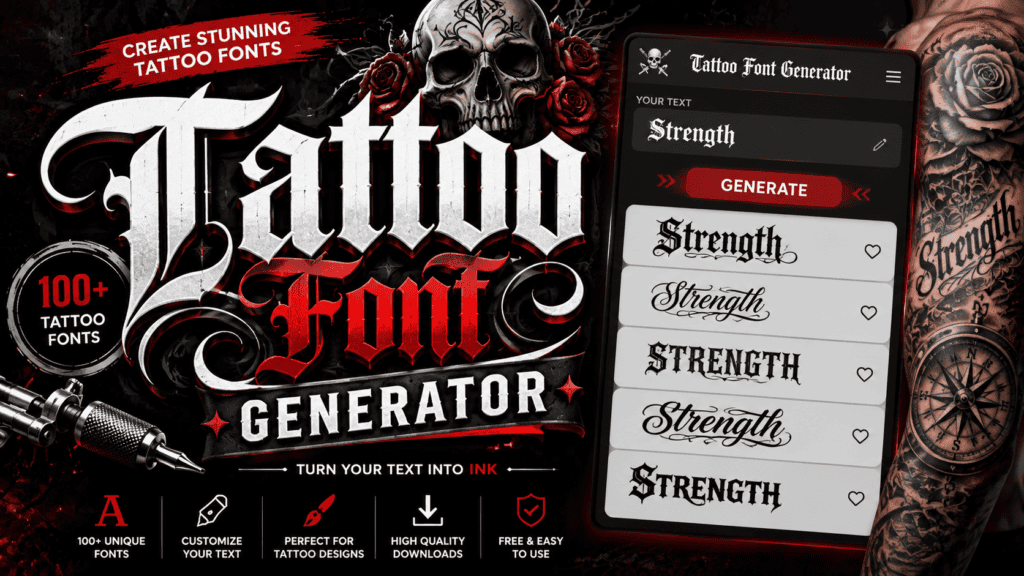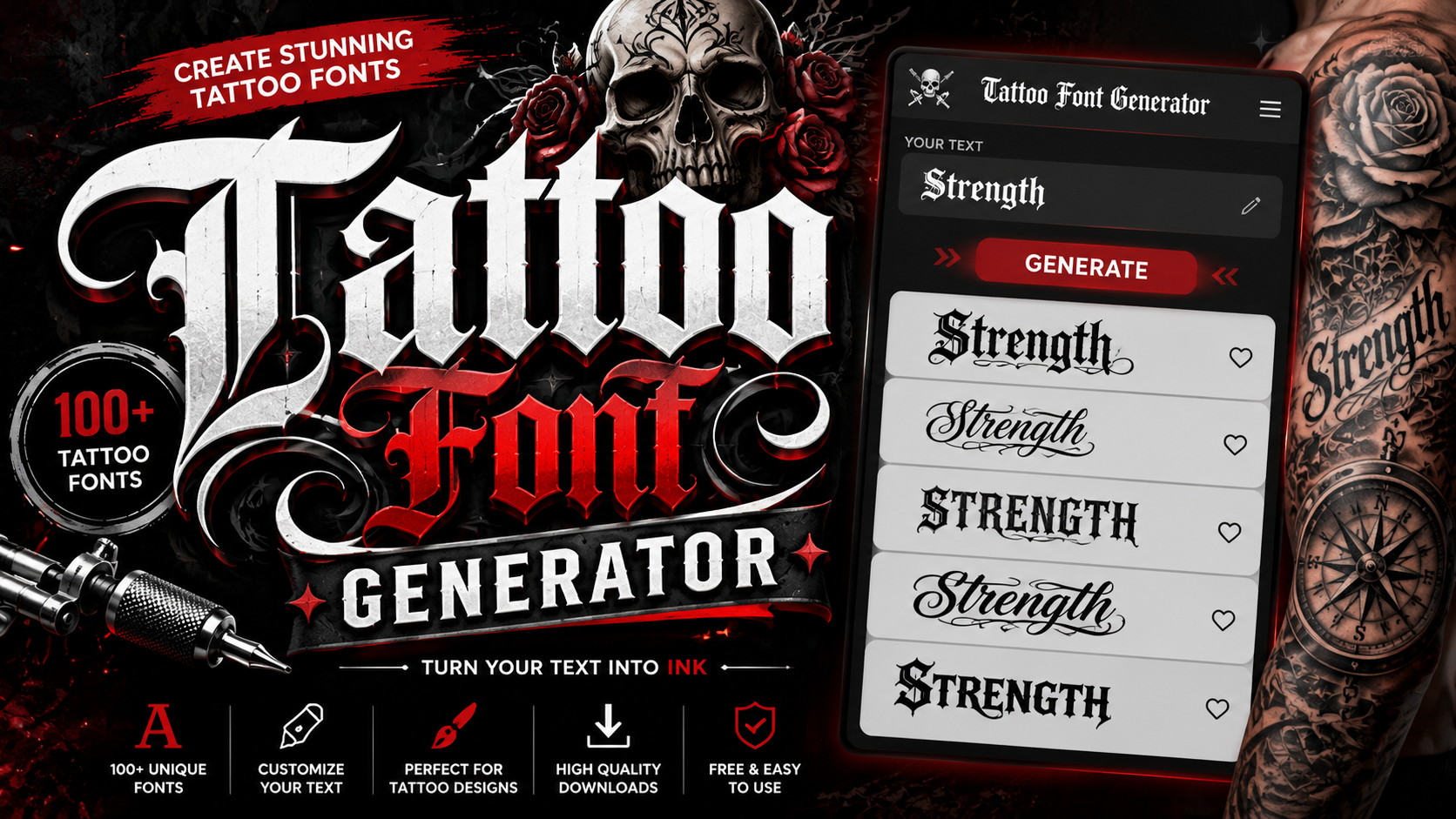
Type your phrase, adjust the size, and find your perfect lettering. Curated free fonts, perfect for planning your next ink.
×Seeking a perfect tattoo design requires a vision beyond standard lettering. Our tattoo fonts offer stunning font variations for body art. Simply input your text and explore stunning designs to personalize your identity right now.
Achieving artistic style involves creative freedom. Use our text generator for font exploration before the ink. Whether for social media bios or stencil artwork, this free tool provides professional fonts with instant previews every time.
Before entering a parlor, use this free tool to visualize your personalized ink designs. Start by typing your name or a poignant quote into the tattoo font generator to craft a powerful statement instant searching.
Adjust the size styles and weight to match your mood before the booking session. Selecting unique lettering helps transform any tattoo-style text into reality, ensuring the art resonates on your wrist or skin perfect blocks.
In my experience, achieving creative inspiration requires tattoo previews before committing. Our tattoo font generator provides multiple styles like gothic or cursive in real time. This free tool ensures professional ink design results here now.
Explore dozens of classic typography characters for custom designs. No hidden fees or watermarks occur here. Every script generator transformation helps standout tattoo lettering look eye-catching. Download your personalized text for the studio very quickly.
Popular Tattoo Font Styles
Artists often select gothic or elegant scripts for artwork. I test how distorted symbols and classic cursive lines flow. Creative inspiration requires curated font styles before committing to permanent inking via modern ink style creation.
Switching mood between edgy typography and modern block letters defines personality. I pick bold blackletter to generate unique mockups. These font variations provide freedom, previewing tattoo lettering without noise or guesses during the creation process.
Every professional artist needs efficient visualization methods before altering skin. Instead of sketching endless concepts, designers utilize this user-friendly utility across modern browsers. Test varied combinations instantly on your desktop without wasting valuable drafting paper.
Beyond studio professionals, absolute beginners seeking personal meaning can explore diverse options directly via mobile. Share your ideas directly with friends online. Ensure total privacy while testing raw letters before committing them to body placement.
Choosing Fonts By Placement
Successful ink starts where skin meets logic. Choosing a wrist or collarbone requires an intimate understanding of how subtle initials or short initials behave when the body moves, ensuring the feminine flow remains perfect.
Balance your personal style by analyzing how Old English dominates the back or forearm versus minimalist lines on a rib. Expert placement ensures masculine bold outlines don’t fade or lose their emotion over time.
Name Tattoos
Name tattoos carry deep emotion, often rendered in handwritten or elegant fine-line styles that feel personal. Whether placed on the wrist, collarbone, or forearms, names in dainty thin strokes honor someone who shaped your story.
Using a tattoo font generator, you can preview multiple styles from blackletter to vintage and tribal, freely adjusting size, weight, and color in real time before sending a high-quality PNG reference image to your artist.
Popular Tattoo Font Styles
Old English defines legacy in tattoo culture, carrying the stamp of centuries. Calligraphy-based scripts feel personal — like whisper-soft handwriting from a meaningful past, connecting moods, memorial bonds, and skin-deep choice into one powerful visual line.
Script fonts, with flowing curves and thicker strokes, remain beloved on forearm and chest placements. Minimalist styles work where scale is tight. Trends evolve, yet full names, couple initials, and family marks never truly fade.
Downloading & Sharing Your Design
Saving your finished design file is genuinely simple here. Export it as a transparent PNG or SVG download — both are high-resolution and print-ready — with no account, no watermarks, and no hidden fees blocking your access.
Share your design instantly — copy and paste styled text into Instagram captions, Facebook posts, Twitter, or Discord messages. For digital projects, the downloadable image works across all online platforms, giving each profile a distinct signature.
Tattoo Fonts for Social Media
TikTok captions and online bios rarely get attention for font psychology, yet status updates using tattoo fonts drive engagement significantly. A memorable bio delivers digital identity with personal branding that genuinely makes profiles stand out.Copy-paste functionality turns digital platforms into personal canvas spaces. Through one click, content creators easily apply a coolwide range of socialdigital art — from graffiti to fine line — across messaging apps, comments, and posts.